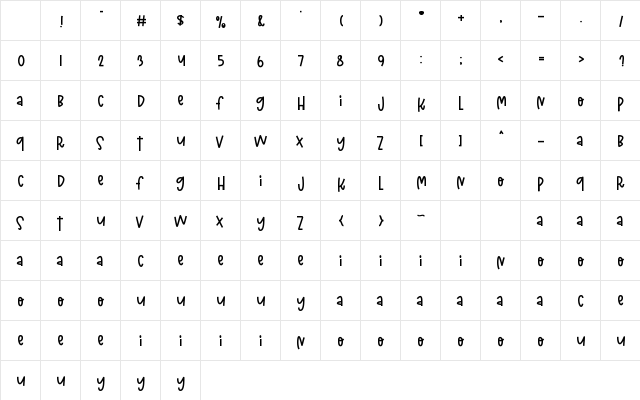
Complete Move Only Display Regular glyph index. Displaying only characters natively supported by Move Only Display Regular font.
Move Only Display is built around its visual character rather than neutral utility - its distinctive forms are designed to make an impression at display sizes.
Font Pairing: Pair with a clean neutral sans-serif for body copy to let Move Only Display's character lead without overwhelming the composition.
Pro Tip: Use Move Only Display exclusively at display sizes - it was designed to be seen, not read at length. Let a neutral companion handle body copy.